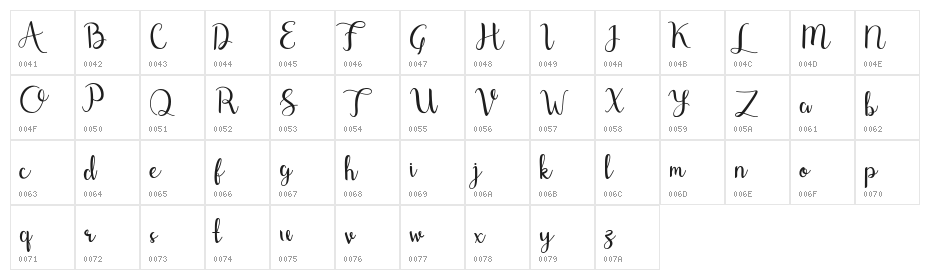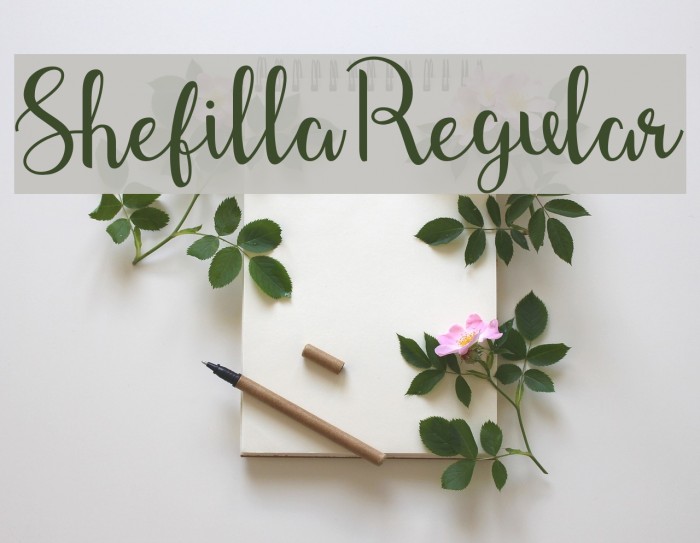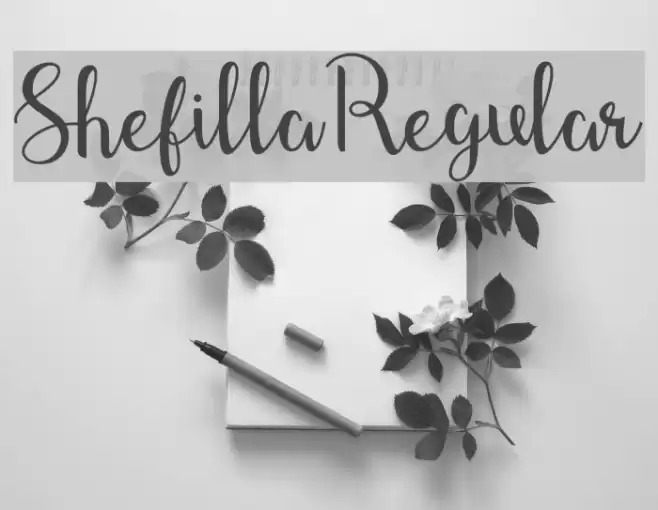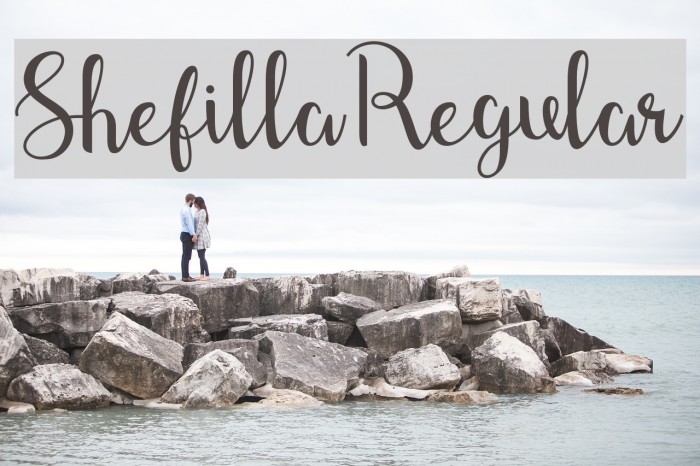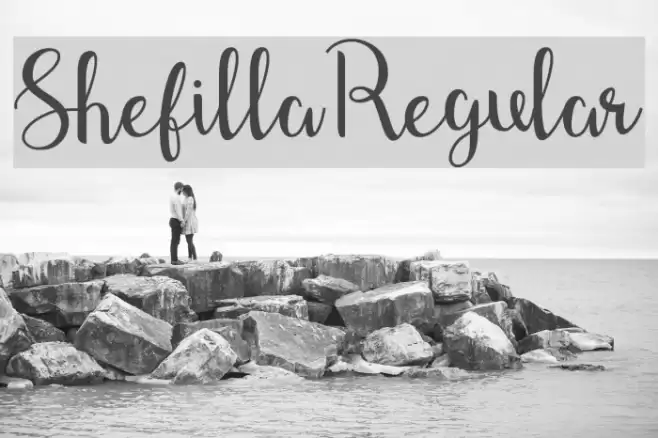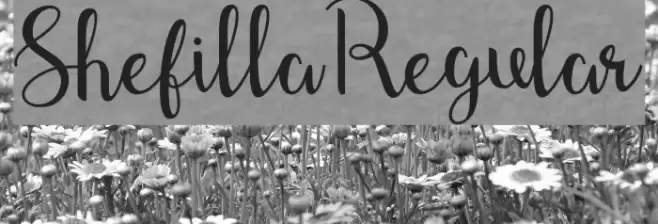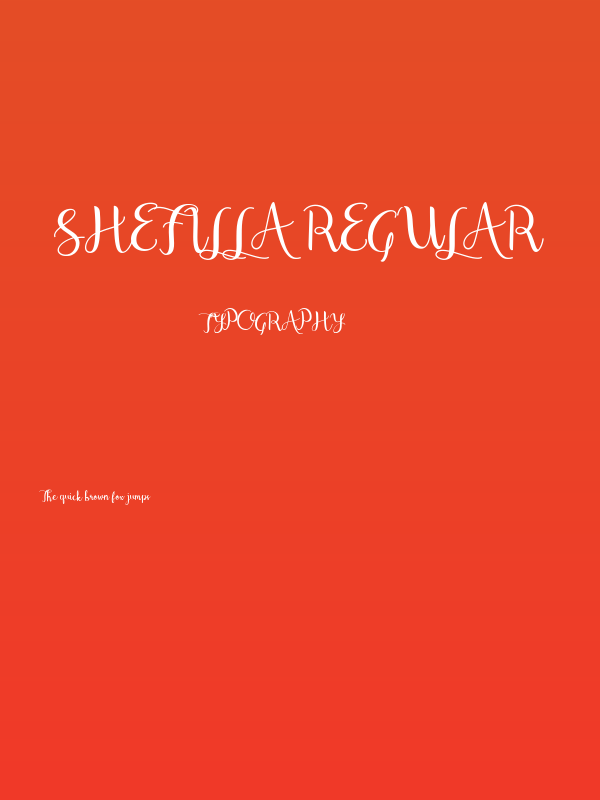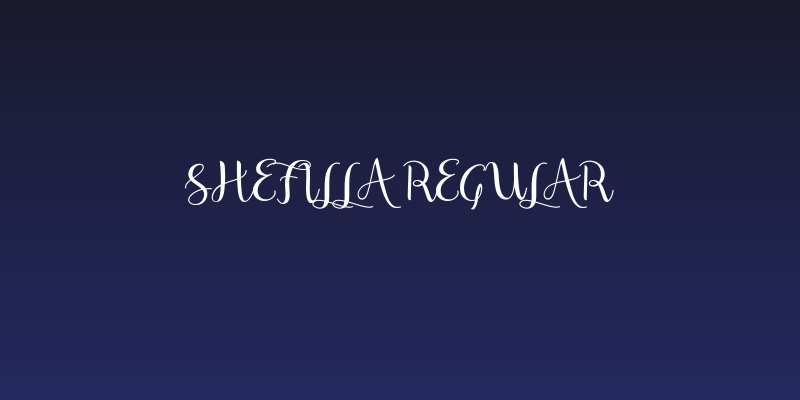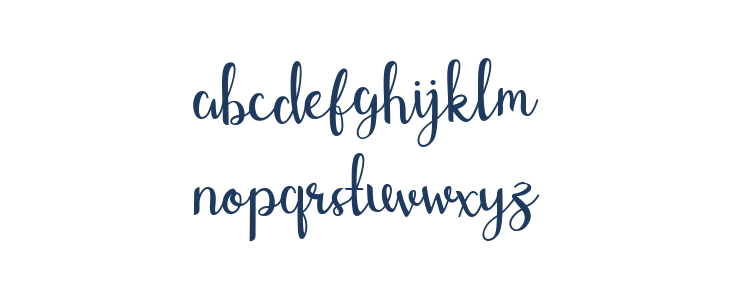
Shefilla-Regular Font
Shefilla-Regular Description
This font features an elegant and flowing script style, characterized by its smooth, cursive letterforms that convey a sense of sophistication and grace. The uppercase letters are distinct with elaborate loops and swashes, while the lowercase letters maintain a consistent fluidity, enhancing readability. The font exhibits a balanced contrast between thick and thin strokes, adding to its decorative appeal. It is well-suited for formal invitations, branding, and any design requiring a touch of elegance. The special characters are designed to match the overall aesthetic, ensuring a cohesive look across all text elements.
CategoriesScript
Overall StyleElegant, Decorative
Use CaseHeadlines, Invitations, Branding
Proposed ProjectsIdeal for wedding invitations, luxury branding, elegant packaging, and decorative headings.